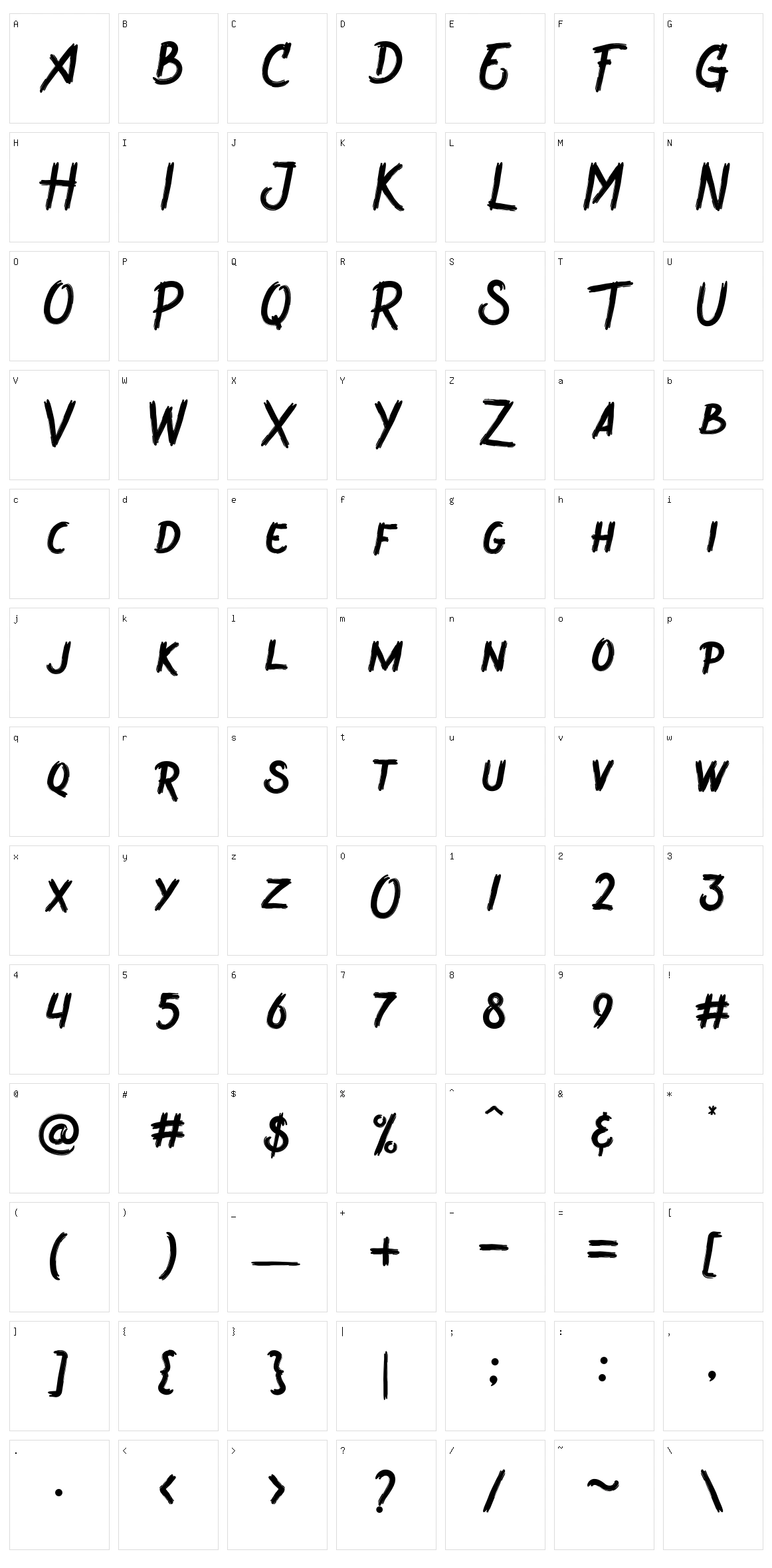
The free font Wreckout is carefully designed by StringLabs Creative Studio, showcasing a thoughtful balance of creativity and usability and falls under the Script font style. When you download the ZIP file, it contains only 146.24 KB of font files, making it lightweight and quick to download. Please review the license details below to understand permitted usage and distribution rights. If license information is not available, we recommend using this font for personal projects only or contacting the author directly for commercial usage permissions.